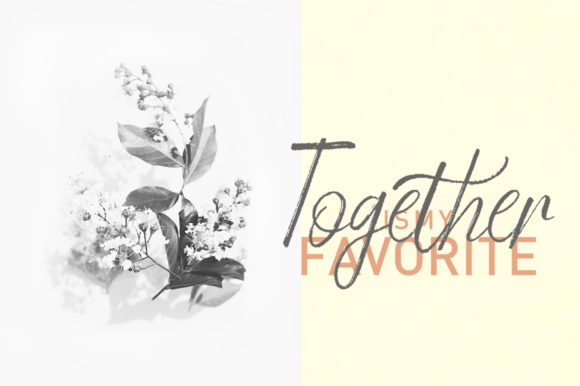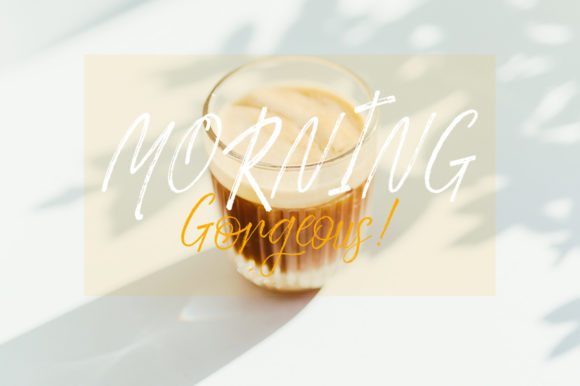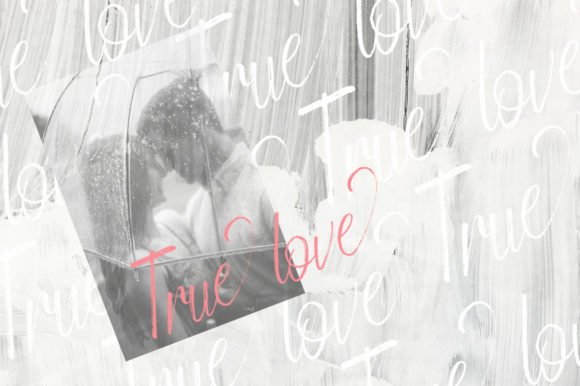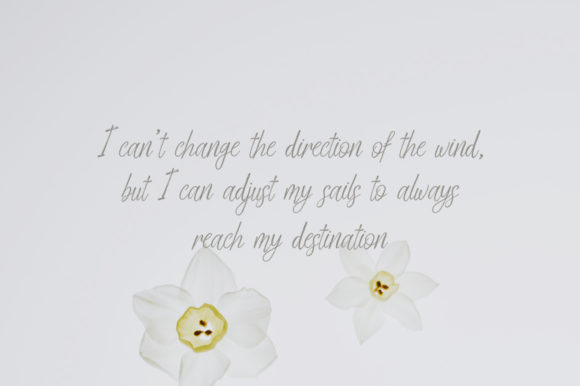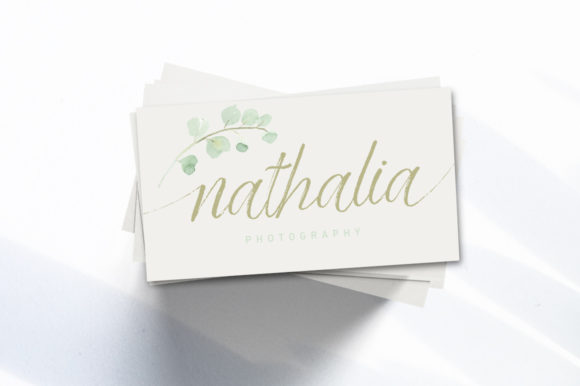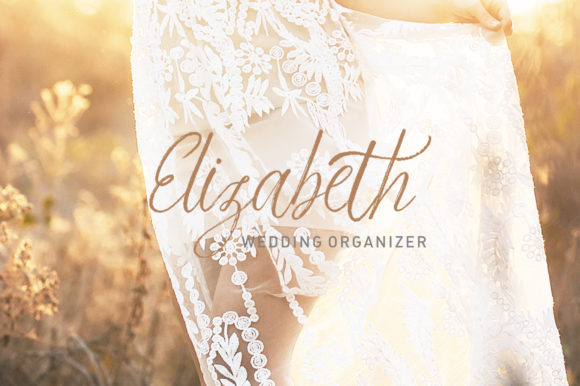
Gempita Brush Font: Elevate Your Designs with a Light and Cool Handwritten Style
Are you tired of using the same old fonts in your designs? Do you want to add a touch of personality and whimsy to your creations? Look no further than the Gempita Brush Font! This beautiful, light, and cool handwritten font is perfect for designers and crafters who want to make their designs stand out from the crowd.
What is Gempita Brush Font?
Gempita Brush is a modern, handwritten font that exudes a sense of smartness and sophistication. Its unique brush strokes and flowing lines give it a distinctive look that’s both elegant and playful. This font is perfect for a wide range of design projects, from branding and advertising to packaging and digital media.
Key Features of Gempita Brush Font
- Light and Cool Aesthetic: Gempita Brush has a light and airy feel that’s perfect for designs that require a subtle yet stylish touch.
- Smart and Sophisticated: The font’s flowing lines and brush strokes give it a sense of intelligence and refinement.
- Handwritten Style: Gempita Brush has a warm, personal feel that’s perfect for designs that require a human touch.
- Versatile: This font is suitable for a wide range of design projects, from digital media to print materials.
How to Use Gempita Brush Font in Your Designs
Gempita Brush Font is easy to use and can be incorporated into your designs in a variety of ways. Here are a few ideas to get you started:
- Branding and Logo Design: Use Gempita Brush to create a unique and memorable logo that reflects your brand’s personality.
- Social Media Graphics: Add a touch of personality to your social media graphics with Gempita Brush.
- Packaging Design: Use Gempita Brush to create eye-catching packaging that stands out on store shelves.
- Digital Media: Incorporate Gempita Brush into your digital media projects, such as videos, presentations, and e-books.
Why Choose Gempita Brush Font?
There are many fonts to choose from, but Gempita Brush stands out from the rest. Here are just a few reasons why:
- Unique Style: Gempita Brush has a distinctive look that’s both modern and timeless.
- Easy to Read: The font is clear and legible, making it perfect for designs that require a lot of text.
- High-Quality: Gempita Brush is a high-quality font that’s designed to work perfectly in a variety of design applications.
Tips for Getting the Most Out of Gempita Brush Font
Here are a few tips for getting the most out of Gempita Brush Font:
- Experiment with Different Sizes and Colors: Gempita Brush looks great in a variety of sizes and colors, so don’t be afraid to experiment.
- Pair it with Other Fonts: Gempita Brush pairs well with a variety of other fonts, so try combining it with different styles to create a unique look.
- Use it in Combination with Images: Gempita Brush looks great when used in combination with images, so try incorporating it into your designs in creative ways.
Gempita Brush Font is a beautiful, light, and cool handwritten font that’s perfect for designers and crafters who want to add a touch of personality to their designs. With its unique style, smart feel, and versatility, Gempita Brush is sure to become a go-to font in your design arsenal. So why wait? Download Gempita Brush Font today and start creating stunning designs that stand out from the crowd!